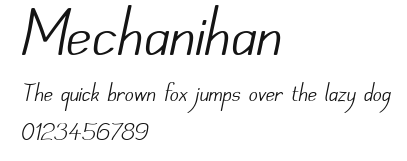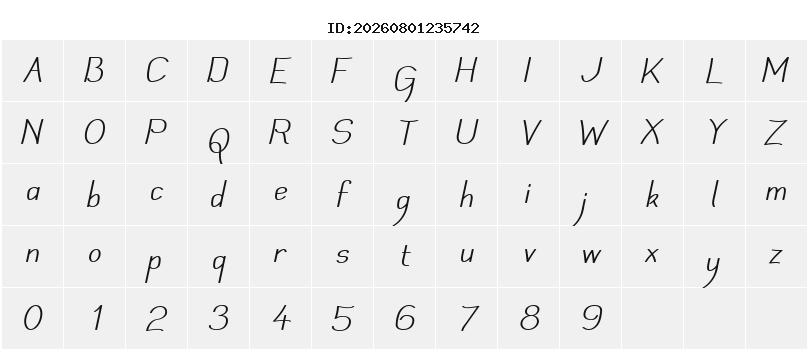
• Font Name: Mechanihan
• Font ID: GrahamMeade: Mechanihan Italic: 2002
• Full Font Name: Mechanihan Italic
• PostScript Name: Mechanihan-Italic
• Designer: Graham Meade
About Mechanihan.ttf
Mechanihan.ttf is a modern, elegant sans-serif font designed for ultimate readability and visual harmony. Perfect for branding, headlines, web design, and print materials.